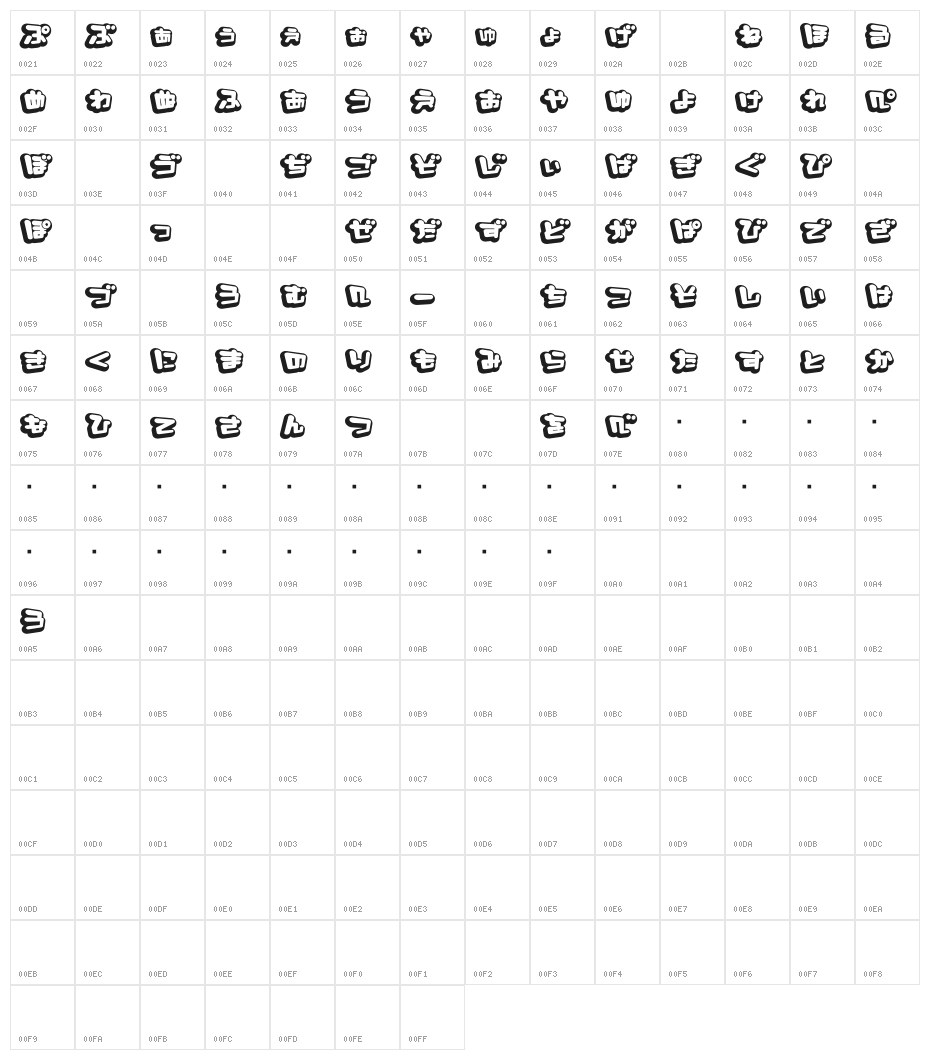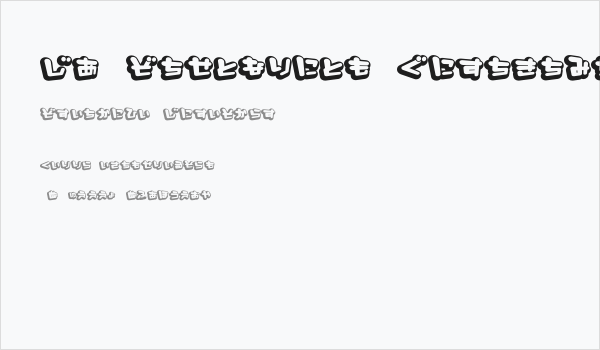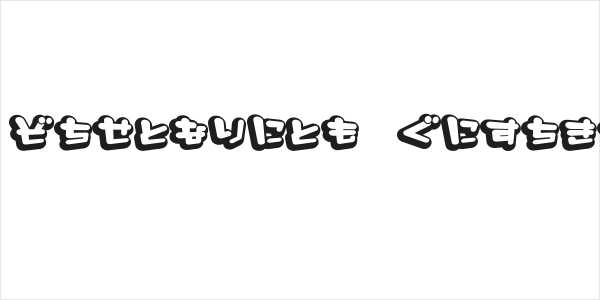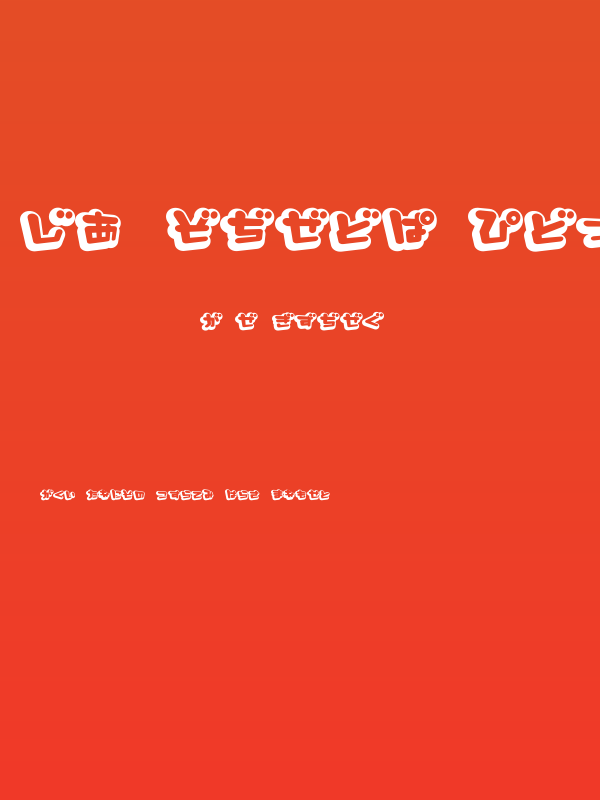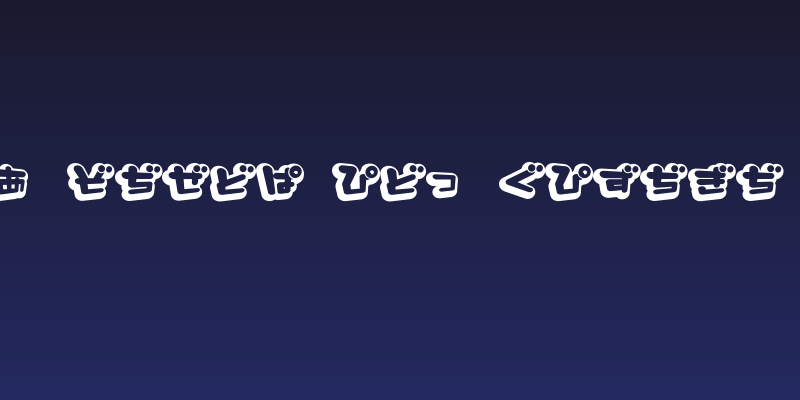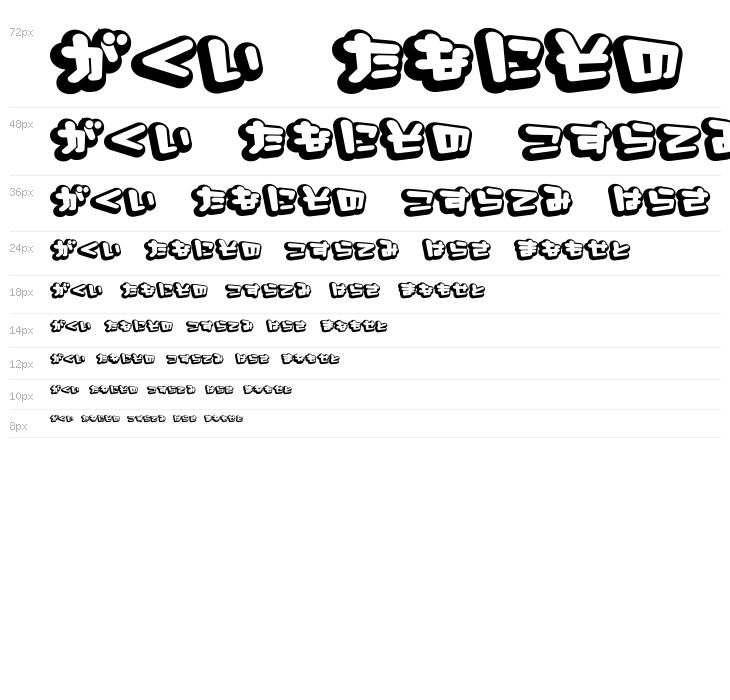
D3 Capsulism Hiragana Font
D3 Capsulism Hiragana Description
This font features a playful and bold style, characterized by thick, rounded strokes that give it a cartoonish and friendly appearance. The characters are outlined with a black border, enhancing their visibility and adding a layer of depth. The font maintains a consistent weight throughout, ensuring uniformity and balance. Its whimsical nature makes it suitable for informal and fun contexts, where a lighthearted tone is desired. The characters are well-spaced, providing clarity and readability, even with the bold outlines. This font is particularly effective in capturing attention and conveying a sense of joy and creativity.
Overall StylePlayful, Cartoonish
Proposed ProjectsChildren's books, comic strips, playful branding, party invitations, and educational materials.